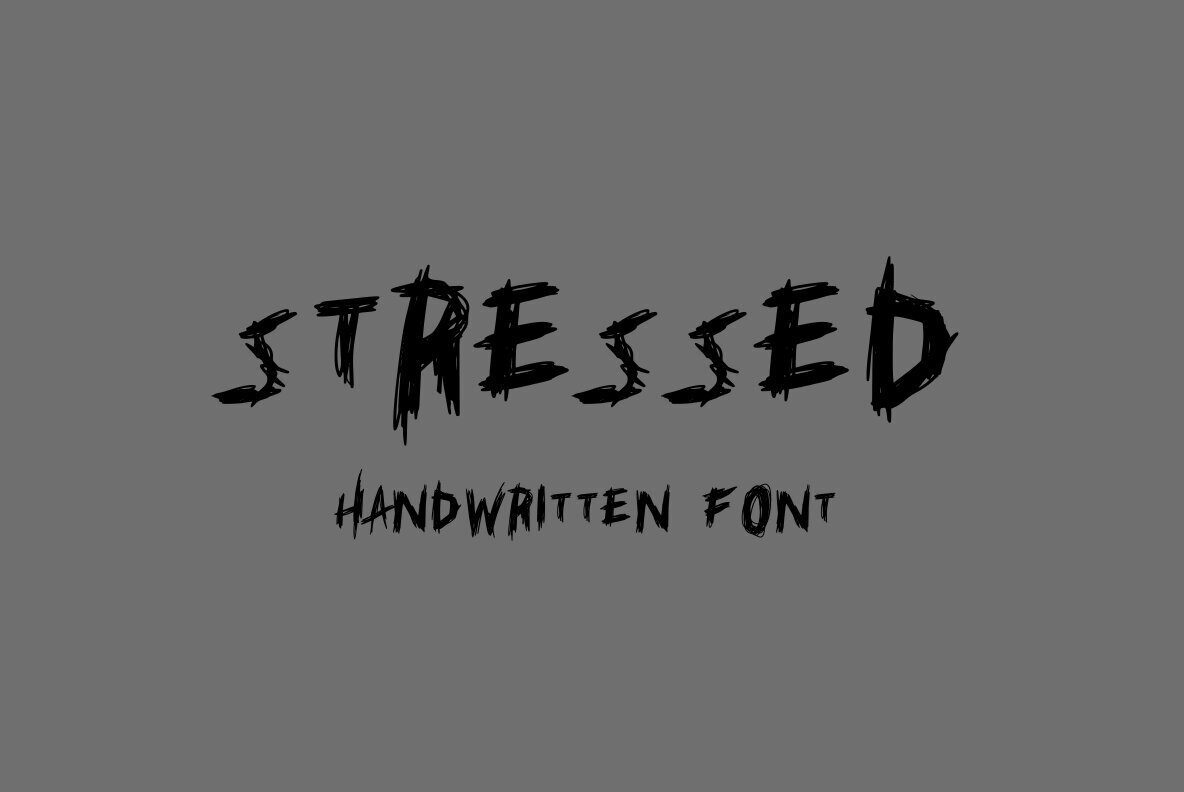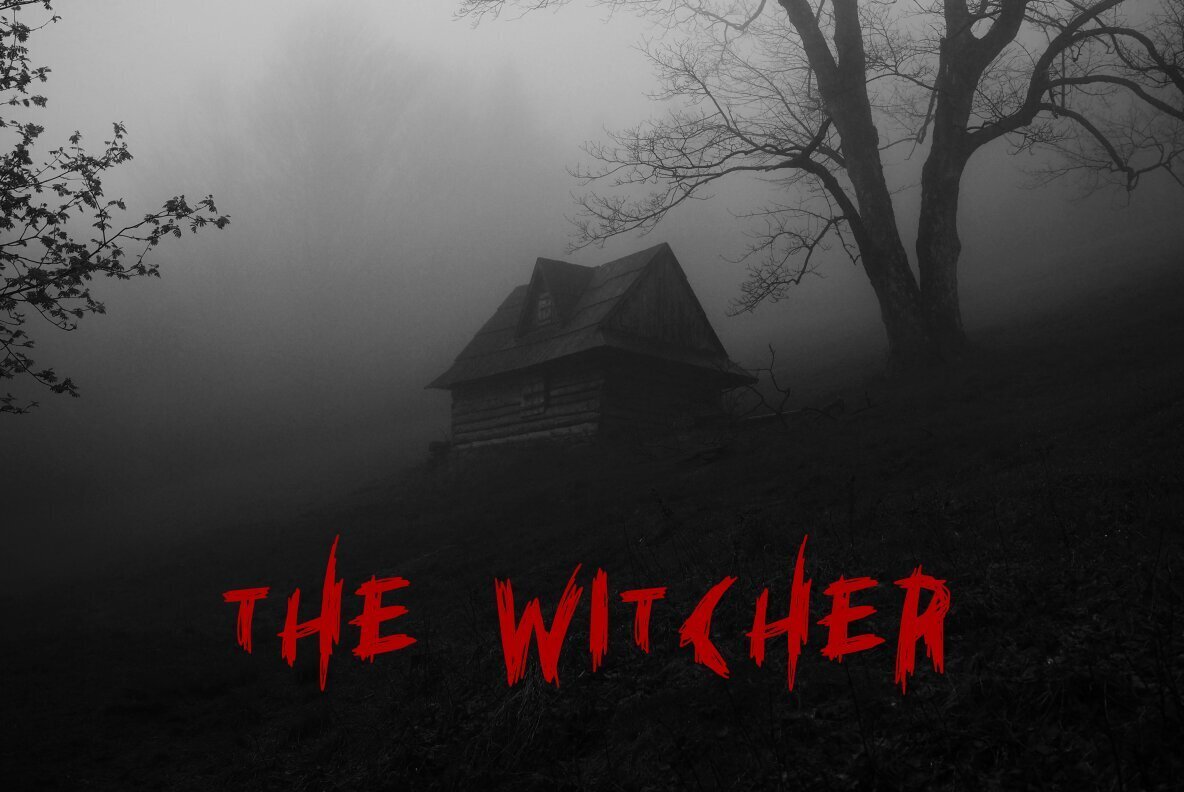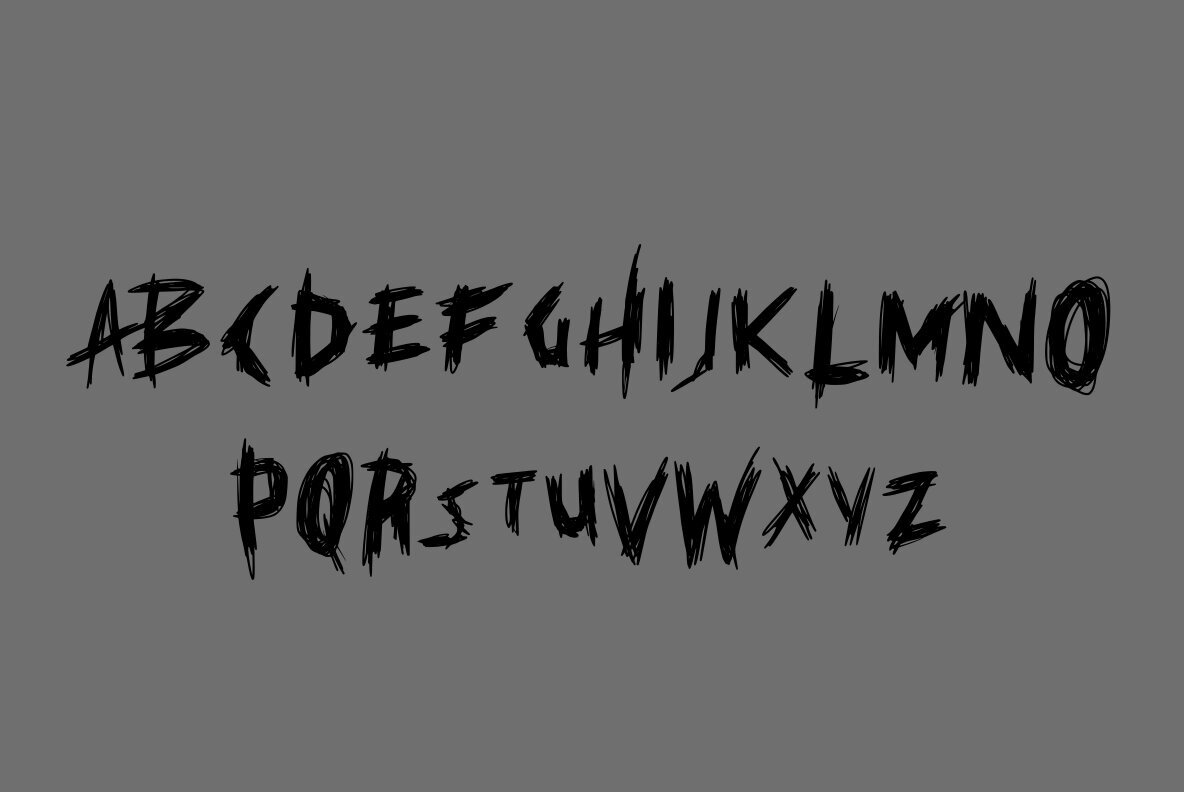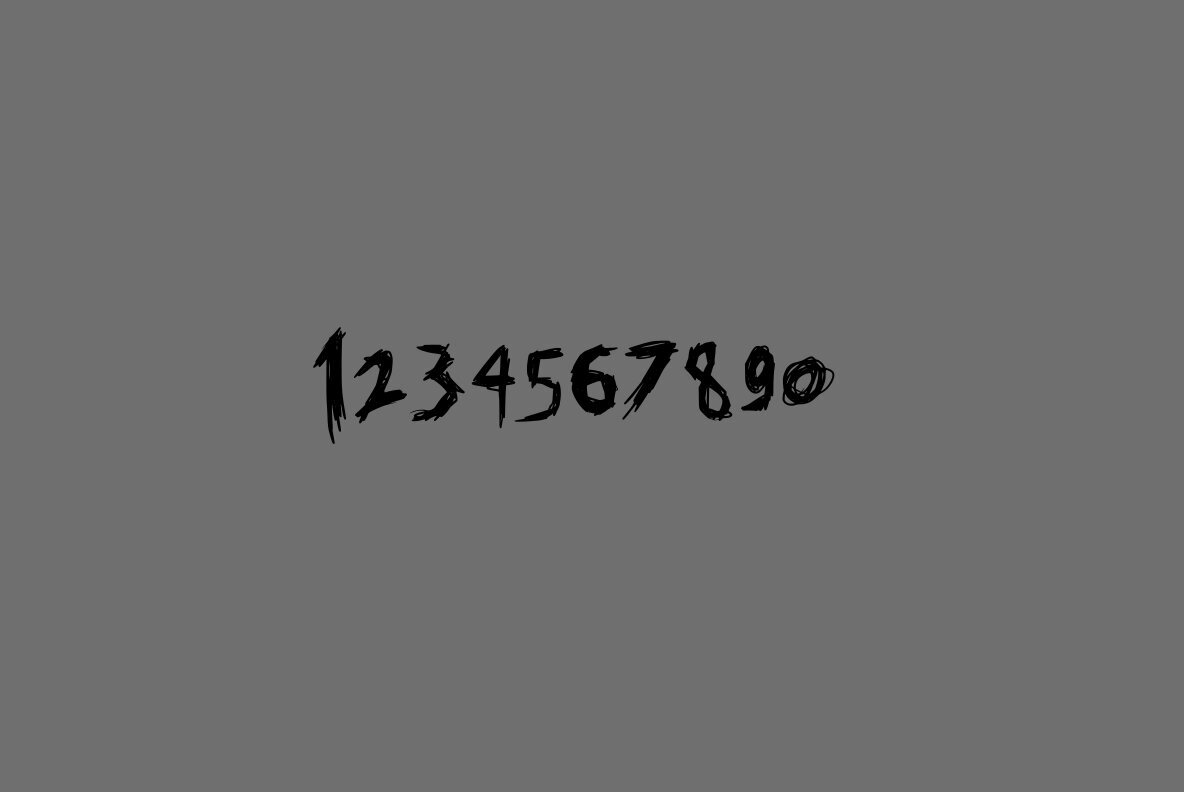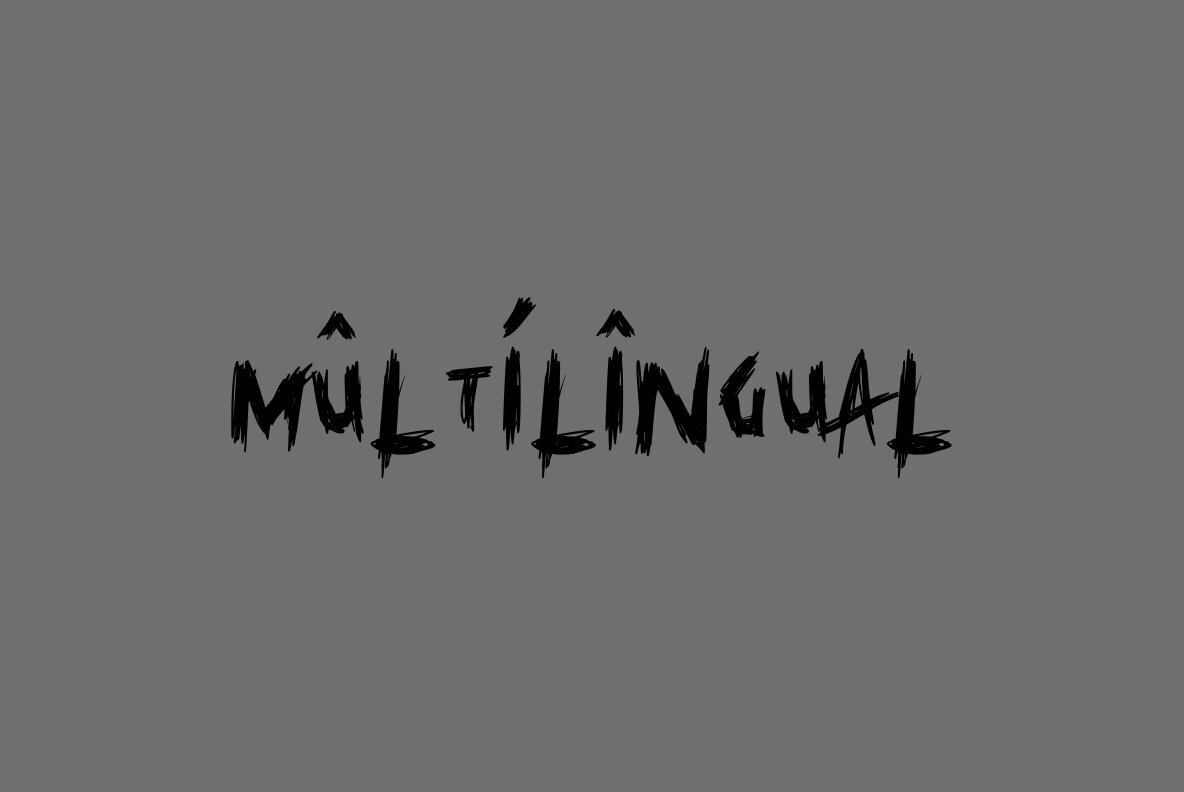
Stressed Font
Stressed Regular
Stressed is a unique typeface crafted with strokes that evoke deep feelings of introspection and emotion. This font embodies a sense of regret, making it an ideal choice for graphic designs that require a touch of emotional depth, such as posters and promotional materials.Stressed: Expressive Font by Arief Rochman